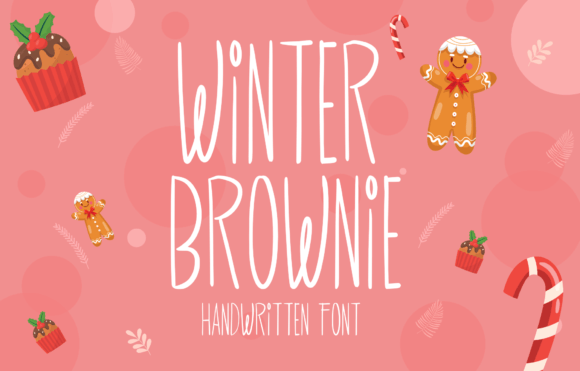
Welcome to the enchanting world of Winter Brownie Font, a script font that exudes warmth and charm. Created by the talented Mofr24 Studio, this font is a true masterpiece, capturing the essence of creativity and individuality.
With its thin, quirky body and elegant curves, Winter Brownie Font is a versatile choice for crafters and graphic artists alike. Whether you're designing eye-catching posters, creating heartfelt greeting cards, or adding a personal touch to your digital projects, this font will elevate your designs to new heights.
Imagine the possibilities:
- Craft stunning posters that speak to your audience's hearts, using Winter Brownie Font to convey your message with elegance and flair.
- Create greeting cards that warm the hearts of your loved ones, using this font to express your affection and gratitude in a way that's truly unique.
- Add a touch of whimsy to your presentations, using Winter Brownie Font to capture your audience's attention and leave a lasting impression.
- Design eye-catching social media graphics that stand out from the crowd, using this font to make your content pop and engage your followers.
The Winter Brownie Font is not just a font; it's an extension of your creativity, a tool that empowers you to express yourself in countless ways. Its versatility and charm make it perfect for any occasion, from casual to formal, from playful to sophisticated.
Embrace the beauty of Winter Brownie Font and unlock a world of creative possibilities. Let your imagination soar and create designs that captivate and inspire. Make this font your go-to choice and experience the joy of turning your creative visions into reality.